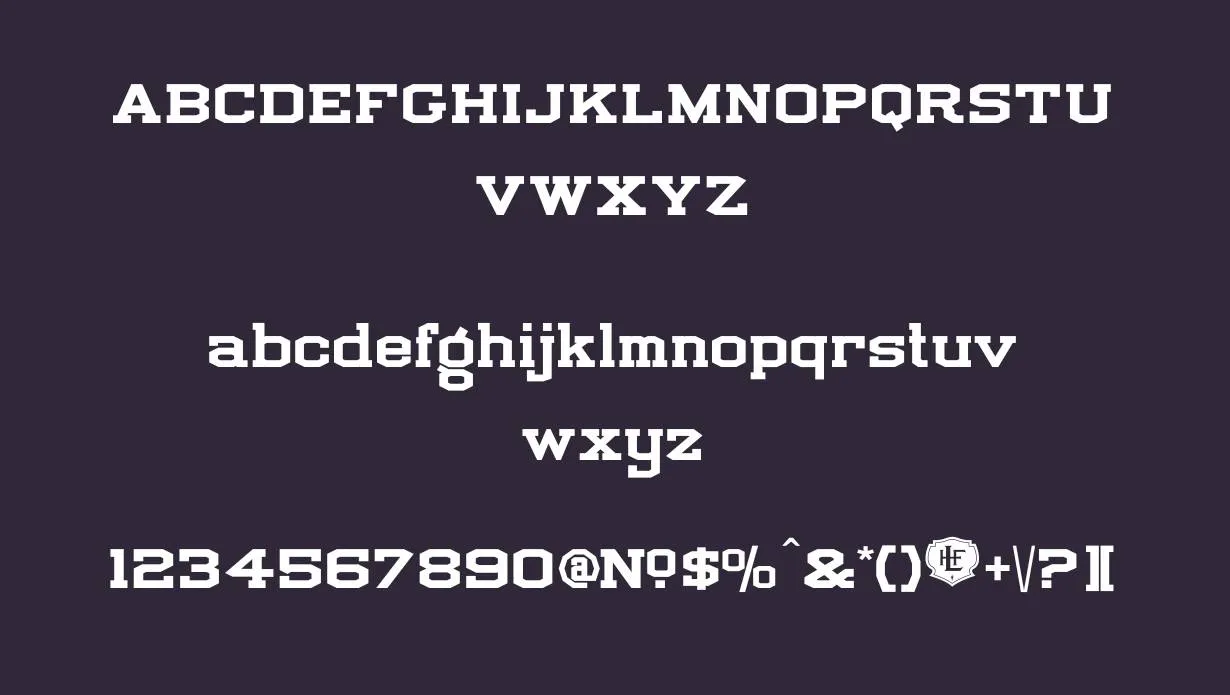
The Full Block Font is a strong and authoritative option in typography, ideal for projects that demand a bold and powerful presence. Its sturdy characters are perfect for headlines or banners, guaranteeing a striking statement.